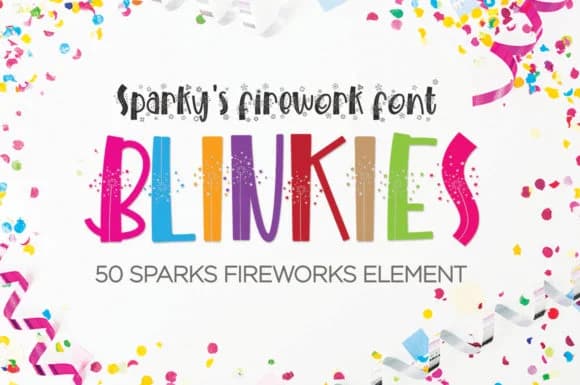
Blinkies Font by lemoncraft is a handwritten script typeface that authentically captures the energy and spontaneity of genuine hand-drawn lettering with an upbeat, youthful visual personality. This distinctive design brings playful movement and warmth to creative projects seeking authentic human connection without the stiffness of geometric precision. Each letterform carries the natural imperfections and organic rhythm that make handwritten scripts feel genuinely personal and inviting to readers. This accessible typeface excels across numerous creative applications where genuine character truly matters. Hand-lettered greeting cards become more memorable and emotionally resonant, while social media graphics gain the human touch that builds authentic audience connection in crowded feeds. The font works beautifully for personalized thank you notes, children's birthday invitations, handmade product labels for independent makers, casual DIY craft signage, and event posters with personality. Each application benefits from Blinkies' friendly, informal aesthetic that strengthens emotional resonance with viewers. The typeface particularly shines when designing stationery for small creative businesses, decorative gift tags, scrapbook pages, journal covers, and hand-lettered wall art. It brings authentic warmth to any project where personality and genuine human connection matter far more than corporate polish or mass-produced constraints. Bring joyful, handwritten warmth to your creative work, get Blinkies Font on Creative Fabrica.
Blinkies Font is a script font that shines as a display or heading face. Pair it with a clean sans-serif or serif font for body text β the contrast creates a clear hierarchy while the two styles stay balanced and easy to read.
Blinkies Font